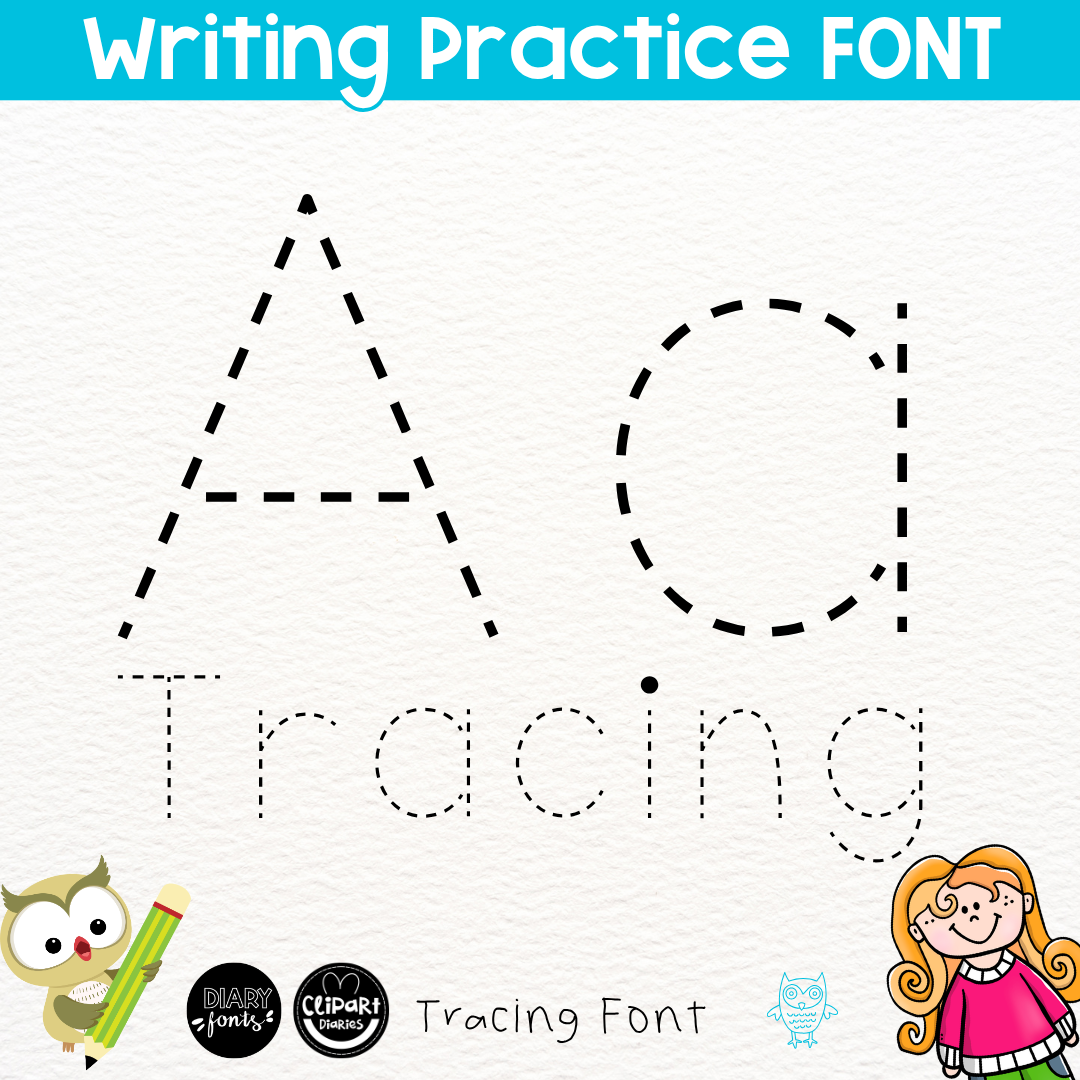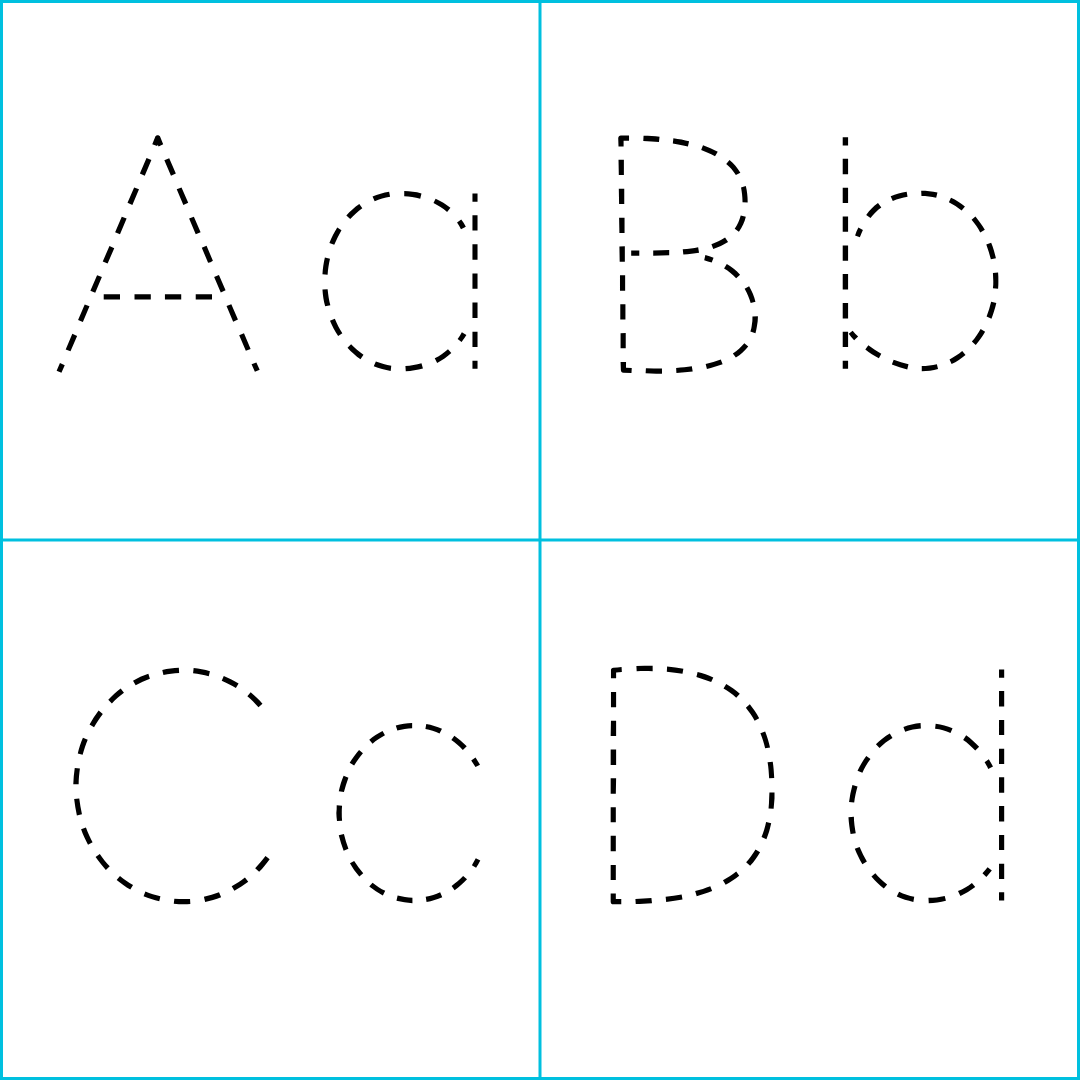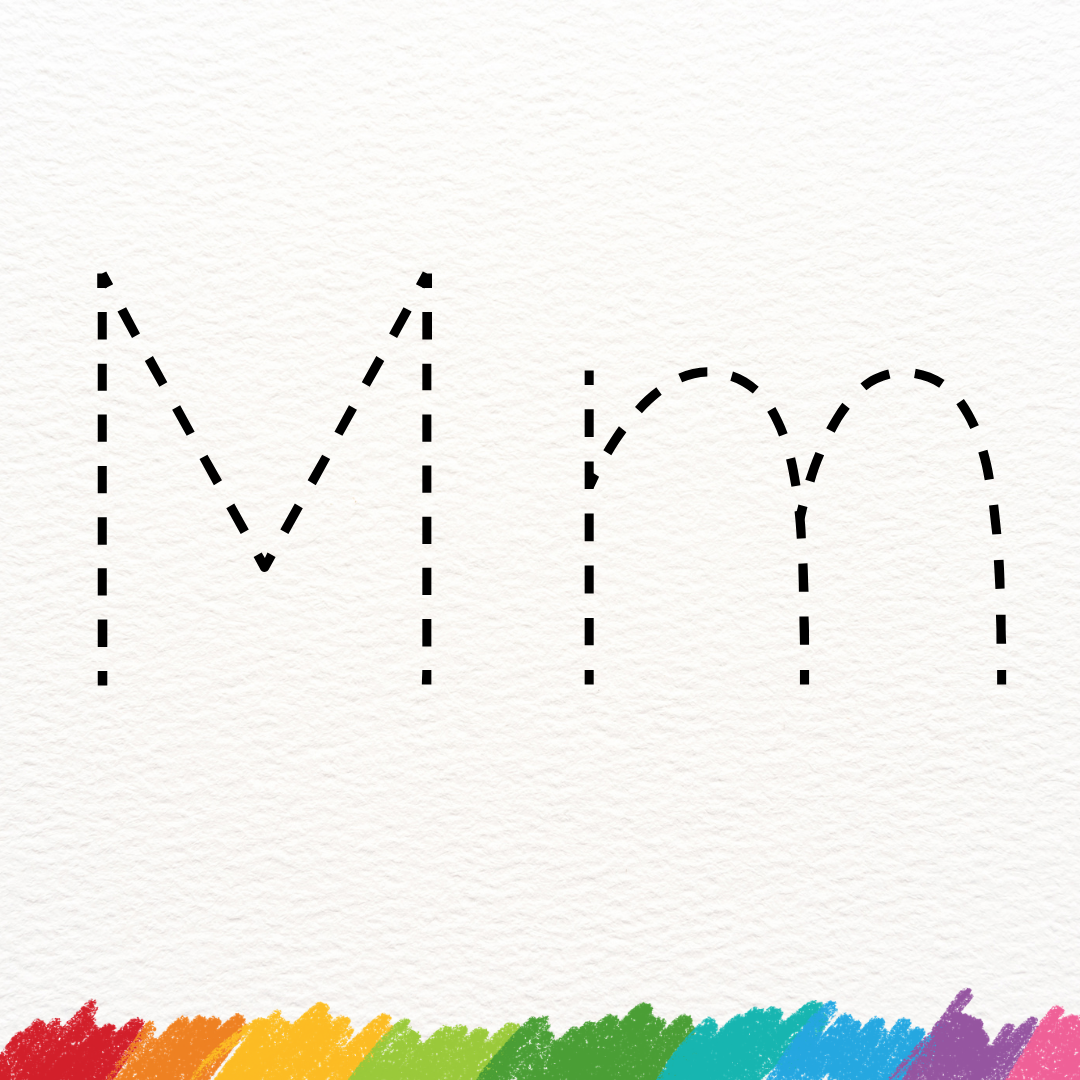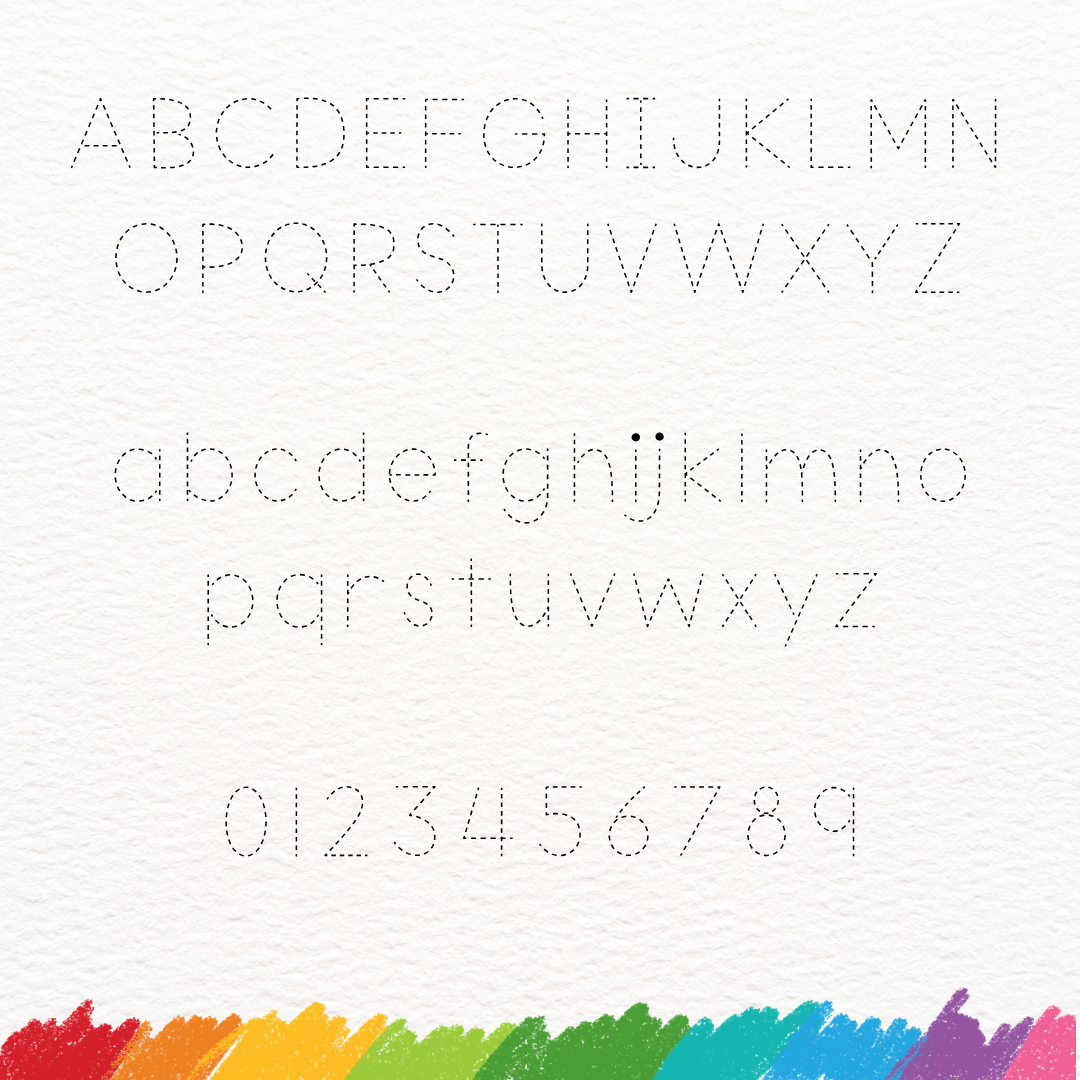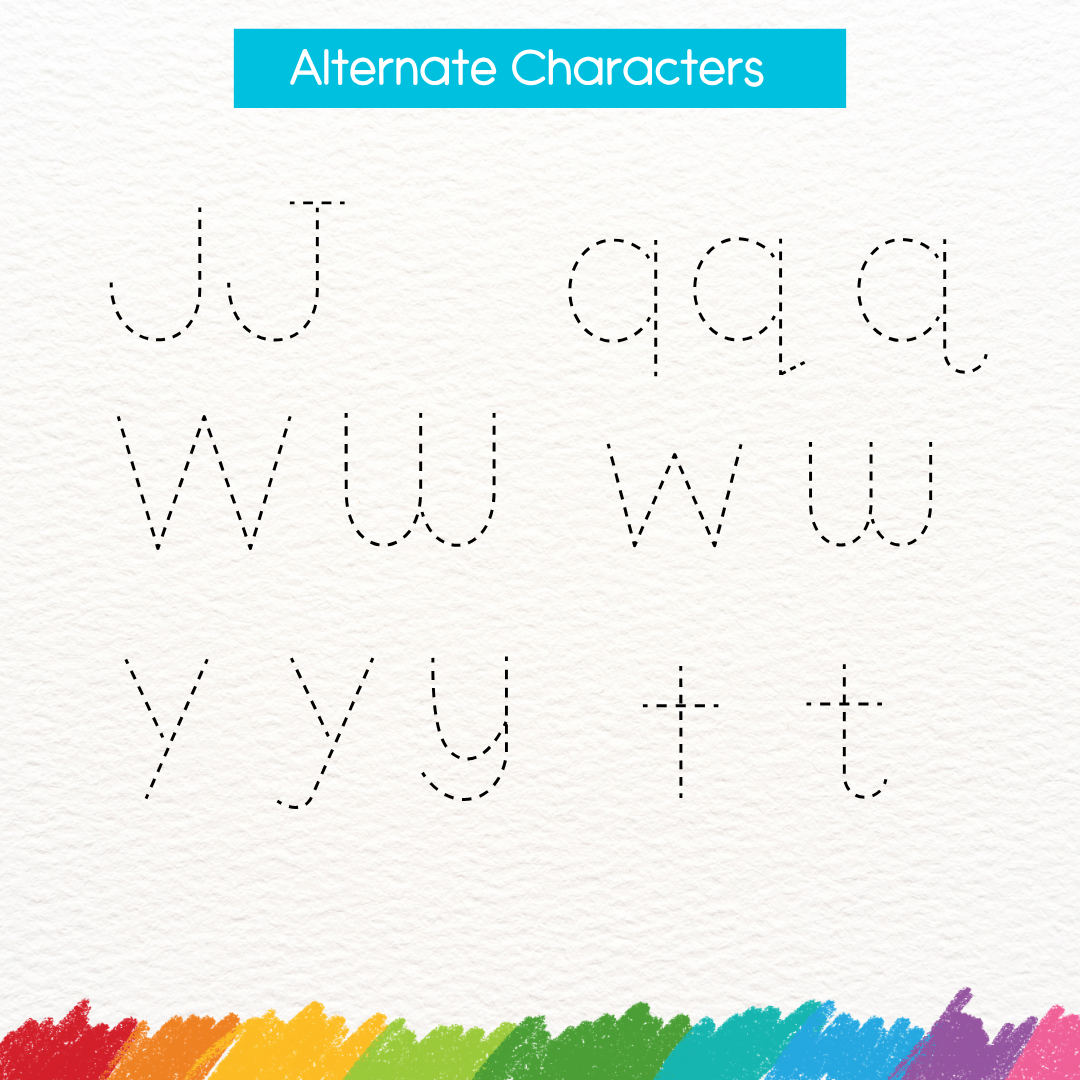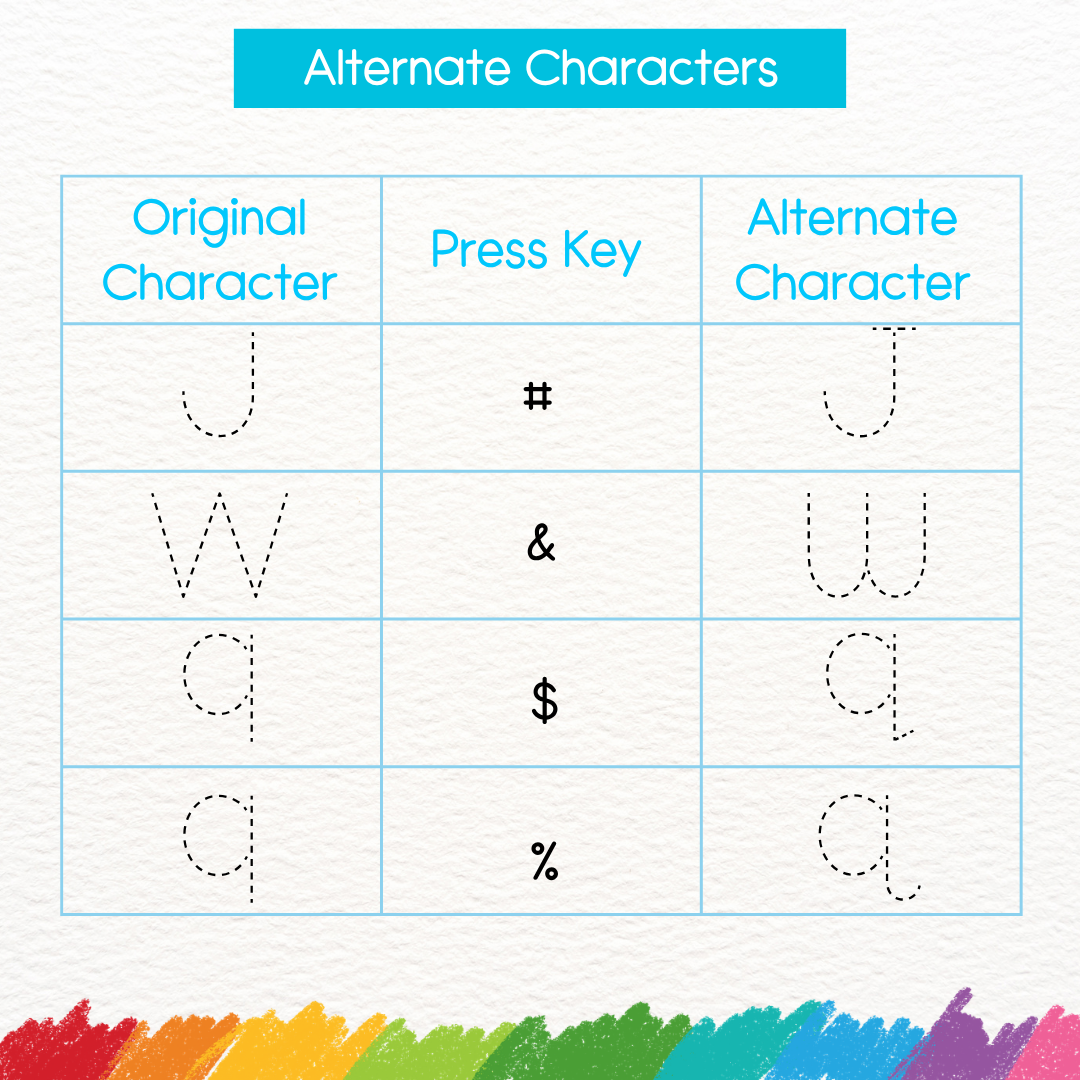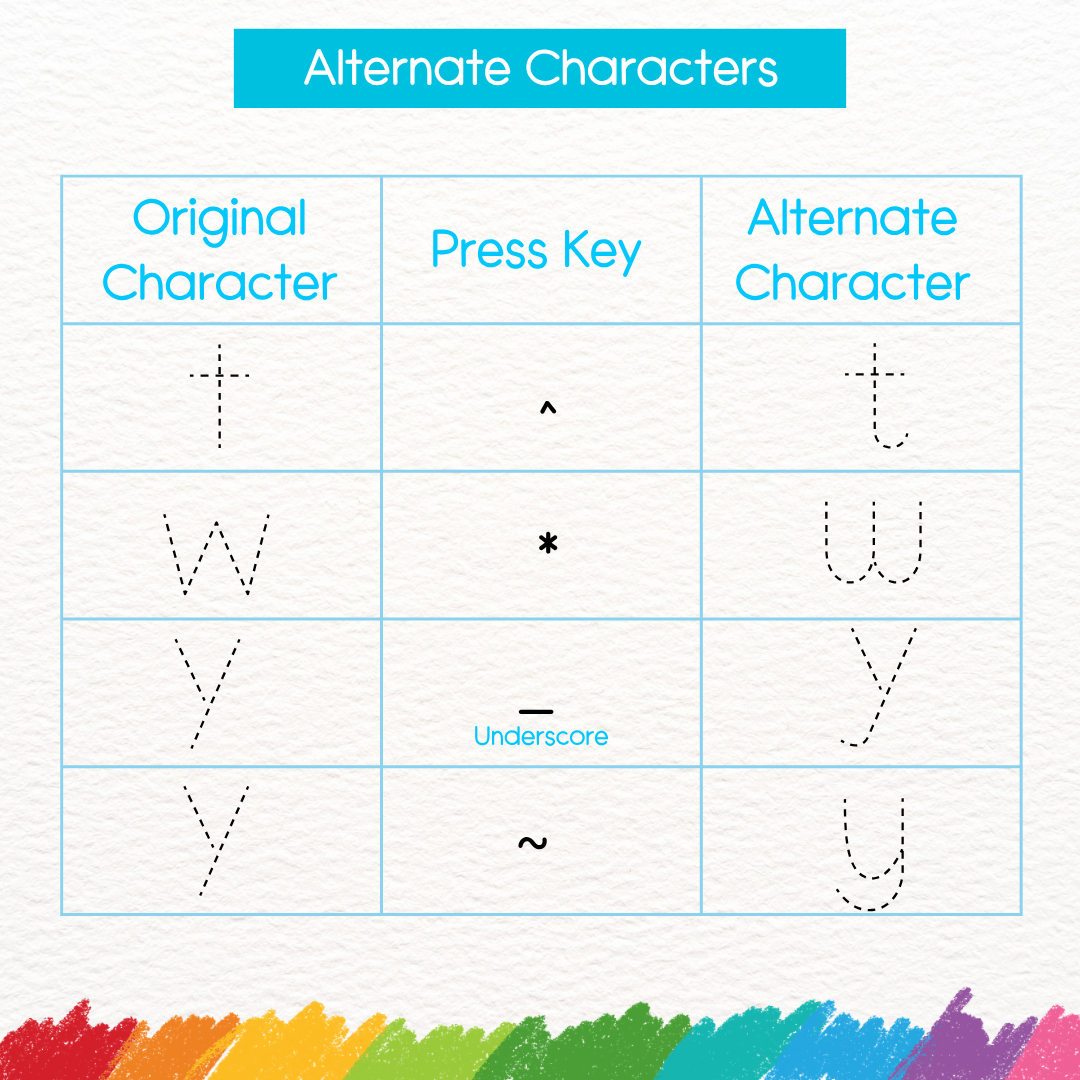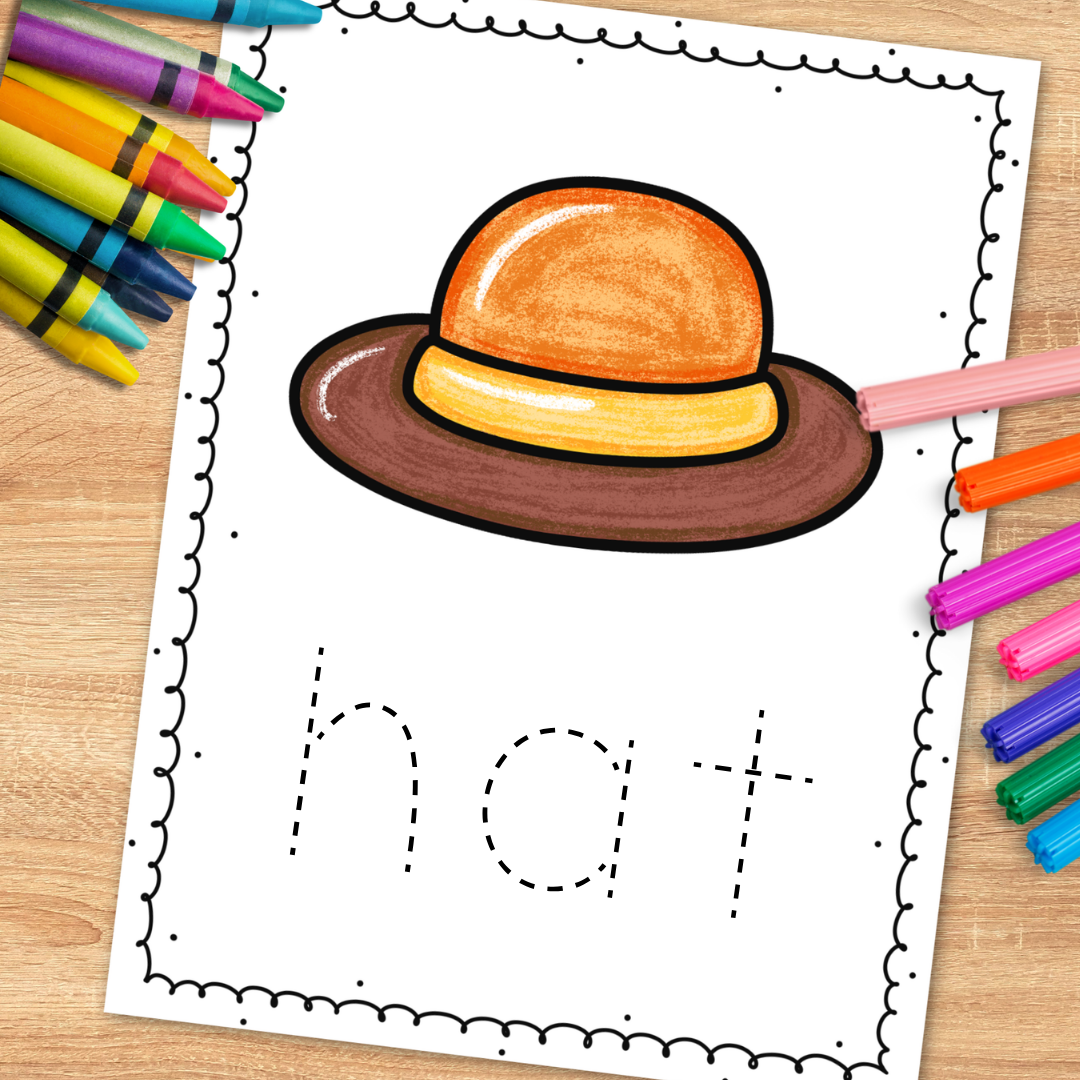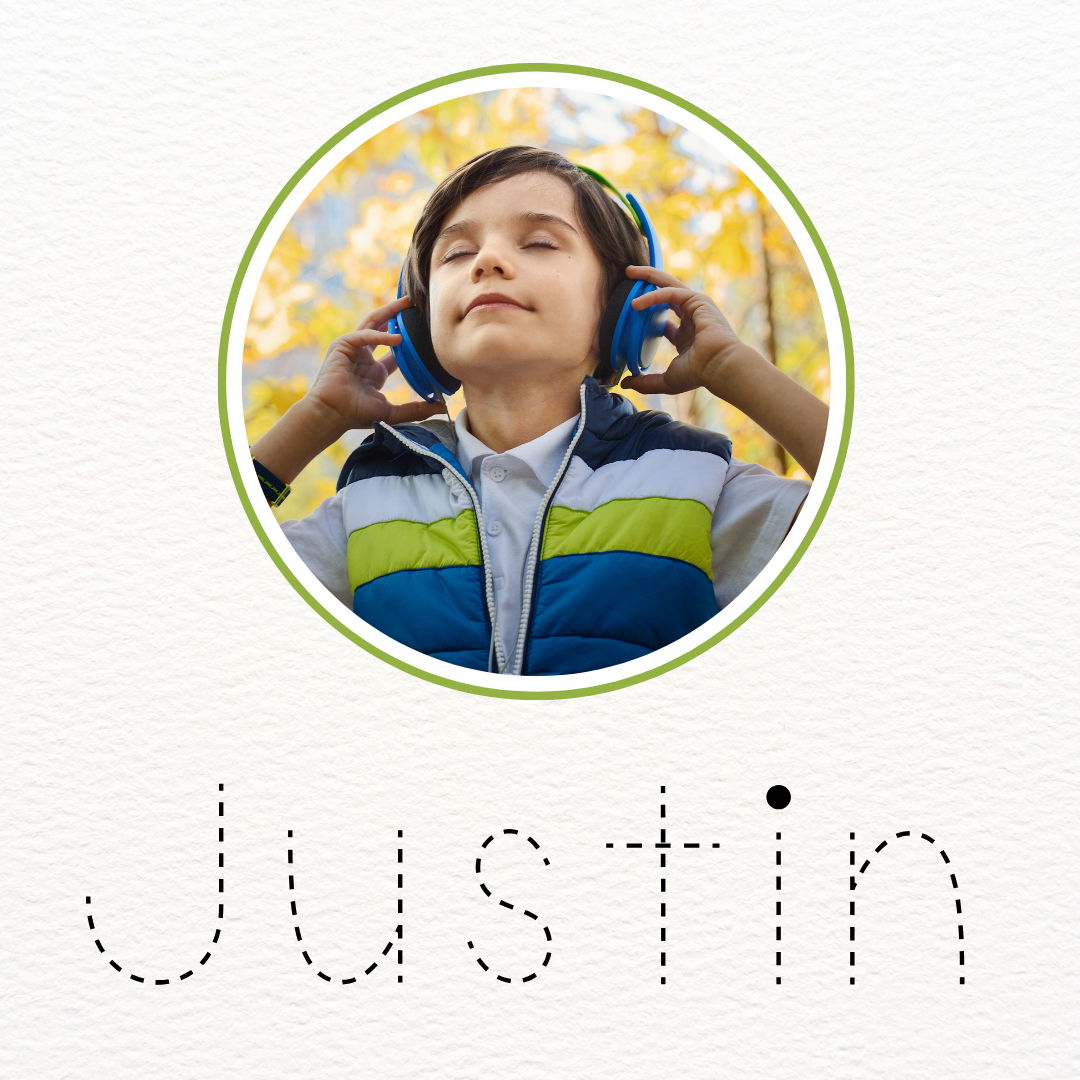
Tracing Font with Dashed Letters for Handwriting Practice – Diary Grade Dash – COMMERCIAL USE LICENSE
This font has dashed letters, which are perfect for tracing and fine motor activities. This set includes all capital letters, small letters, and numbers best for toddler tracing, name tracing, letter recognition letter tracing, and number tracing exercises worksheets.
Create fun and engaging activities for kids to trace letters with this neat handwriting font!